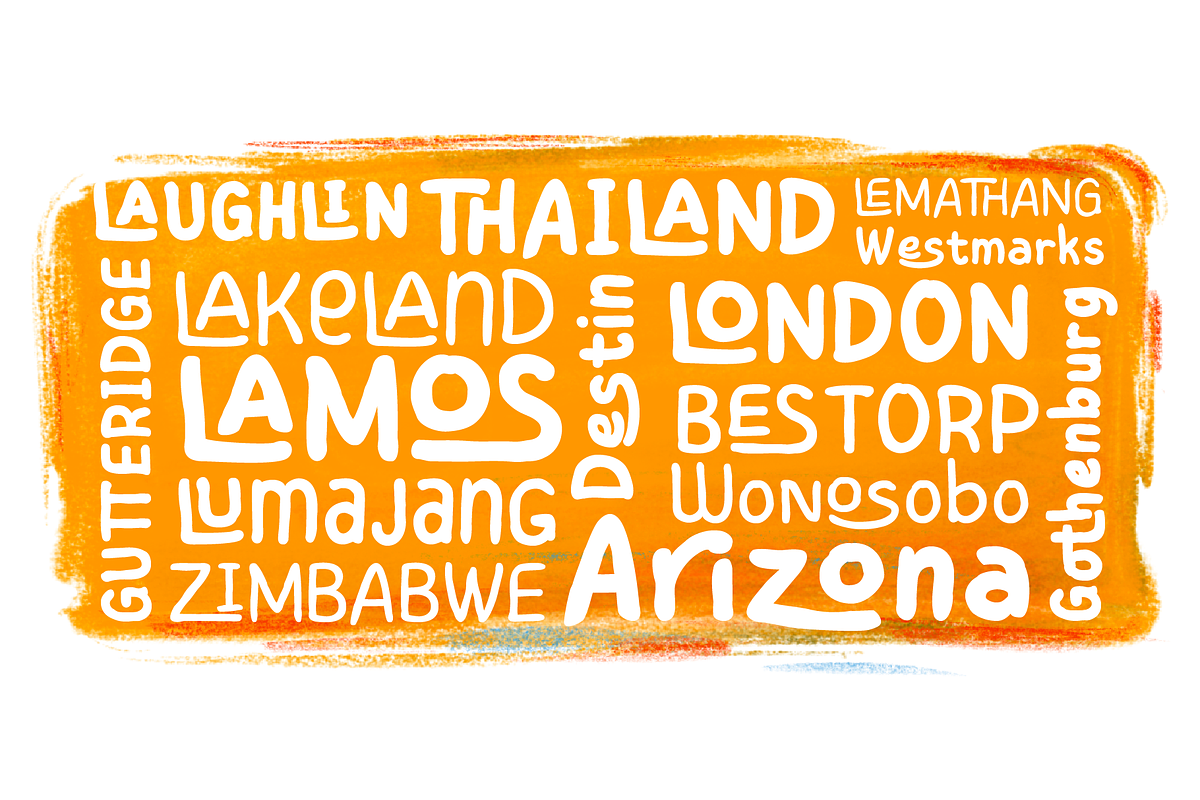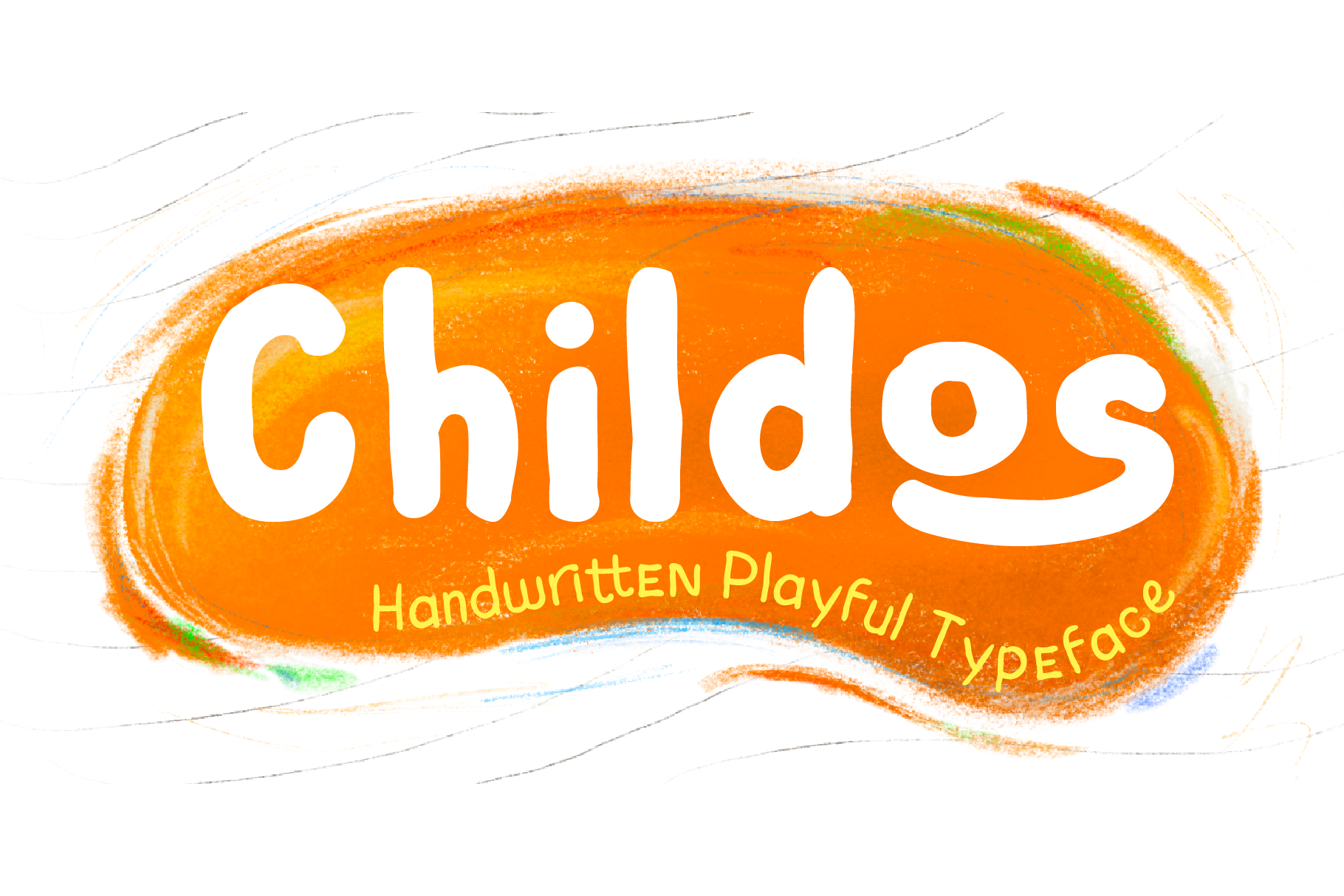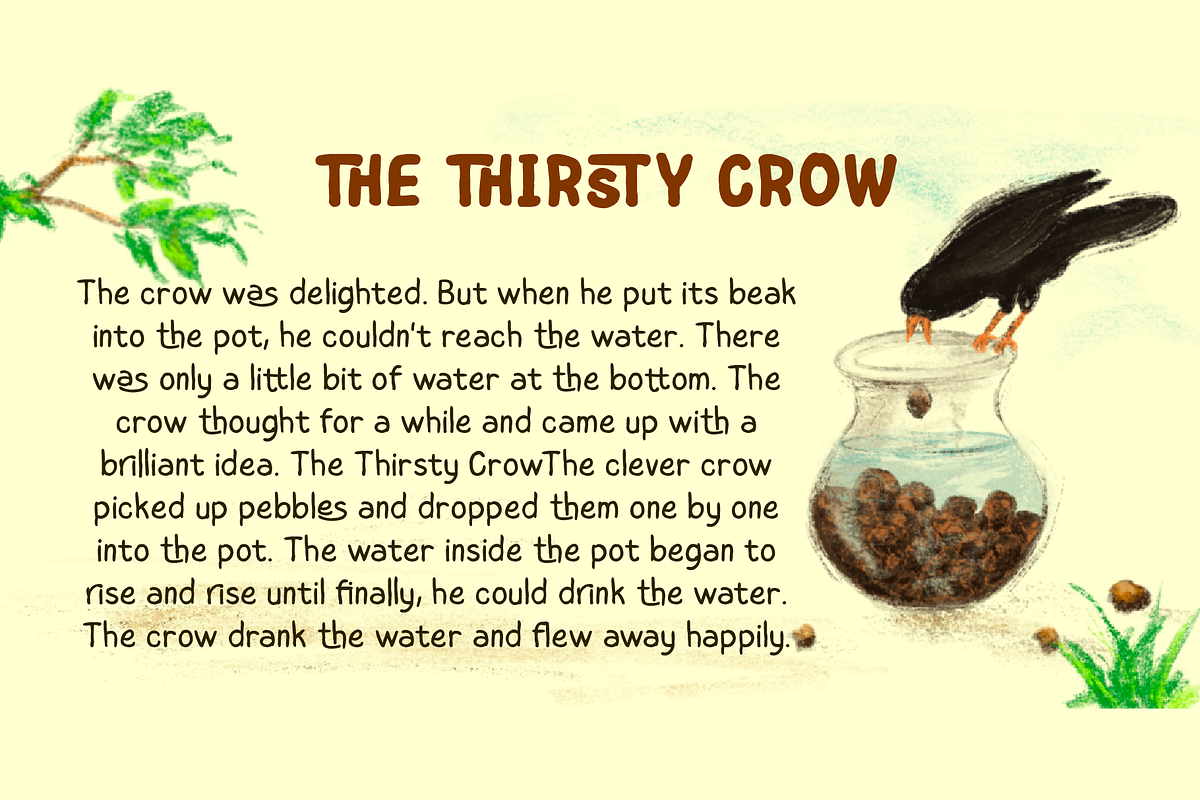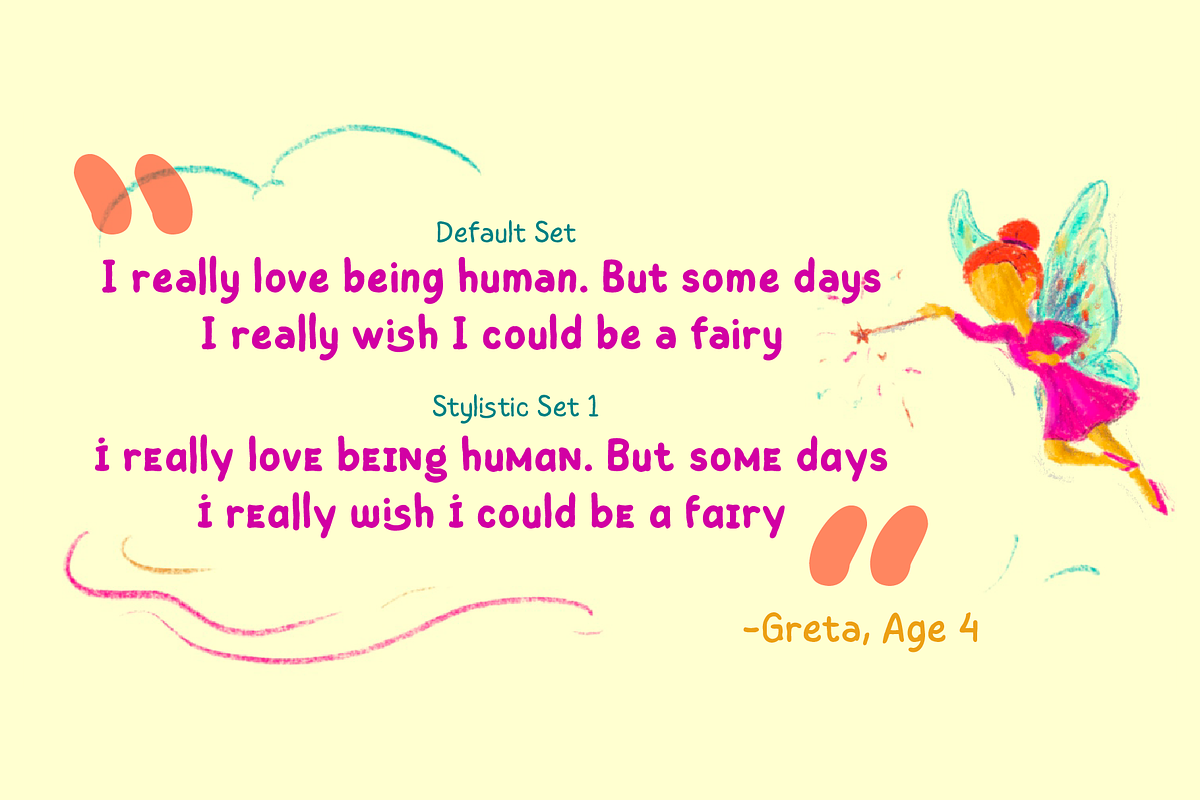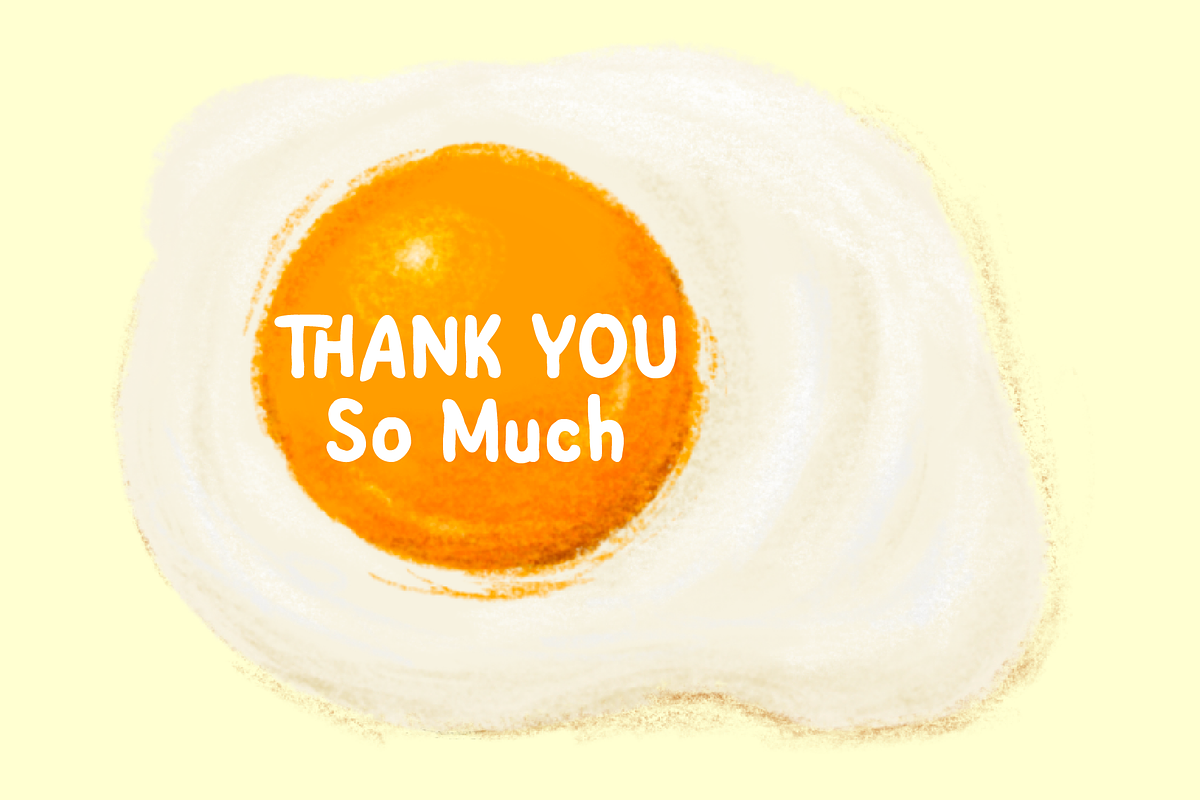
Childos - Playful font Family
Childos is a handwritten font in rounded, rough sans serifs style, as well as the development of free and attractive ligature to fill the space between letters and make playful children feel designs.